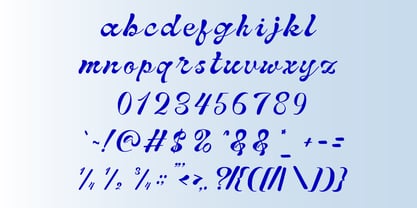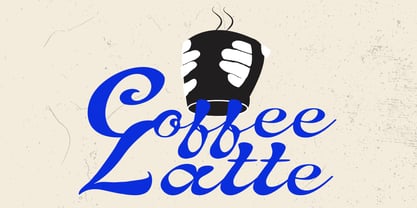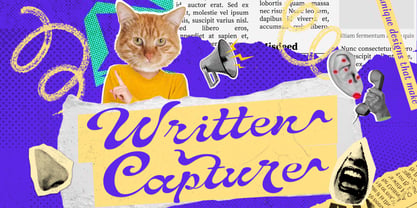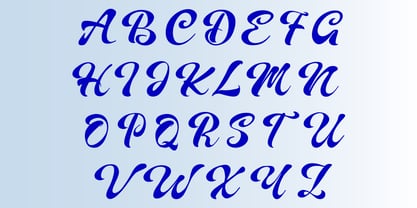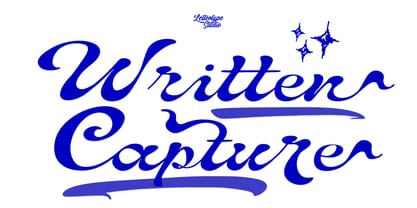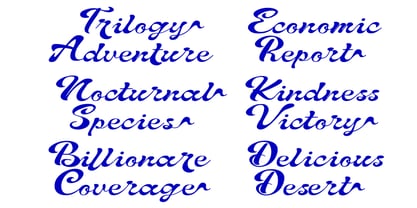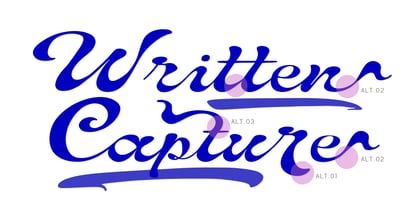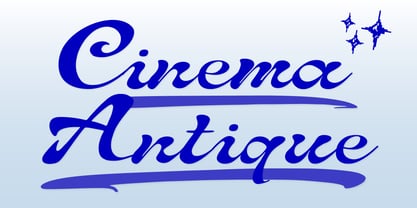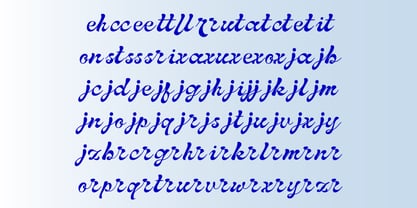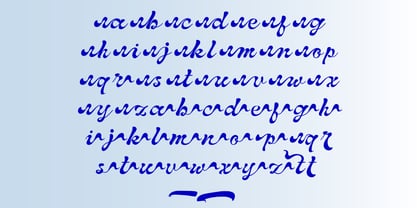
Written Capture
von Lettertype Studio
Die Schriftfamilie Written Capture wurde von Diki Pradipta Tri Atmojo entworfen und von Lettertype Studio veröffentlicht. Written Capture enthält 1 Stile. Mehr über diese Familie
Written Capture was developed to reflect the expressive side of handwriting. Rather than aiming for perfect uniformity, the typeface embraces subtle irregularities that add warmth, movement, and personality to each word. Throughout its design process, attention was placed on stroke balance and letter connections. These details help maintain visual flow while allowing each character to stand confidently in display settings. Written Capture is intended for creative projects that value voice and emotion. From brand identities and packaging to editorial highlights and promotional graphics, it offers a handwritten presence that feels natural and intentional.
Designer: Diki Pradipta Tri Atmojo
Aktuelle Foundry: Lettertype Studio